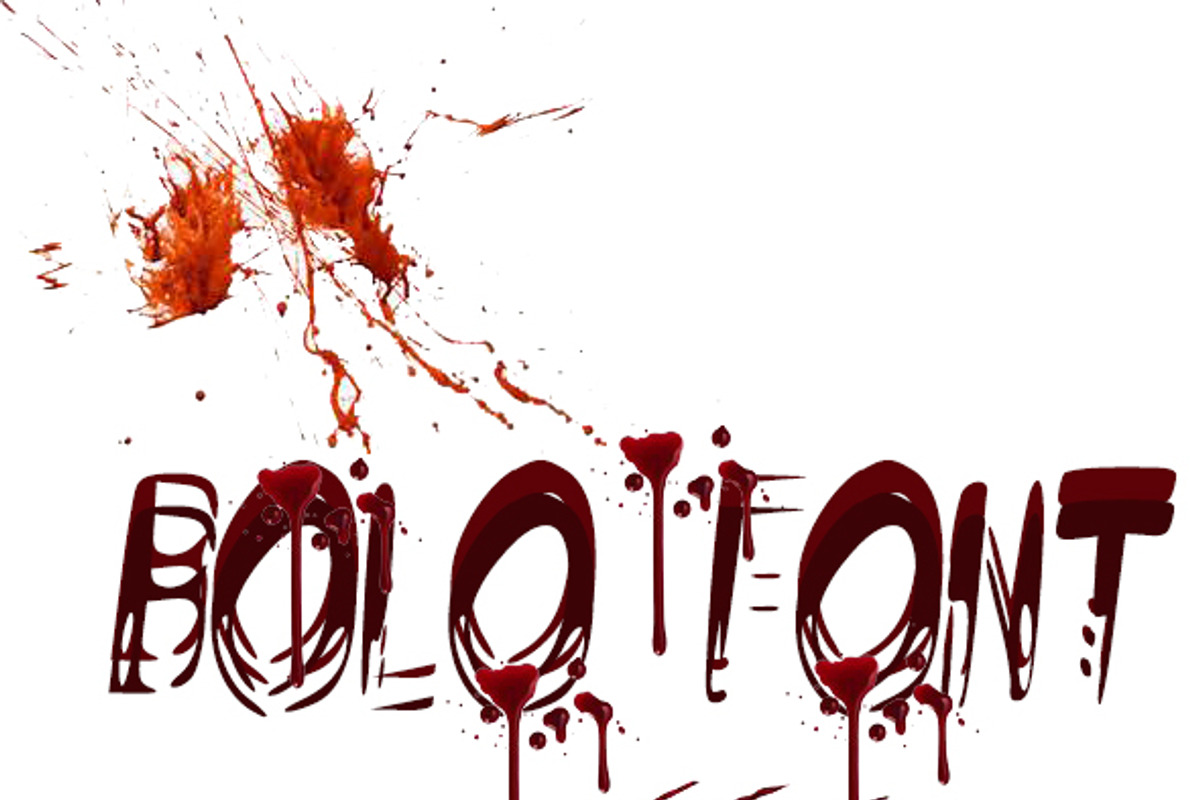
BLOOD FONT
BLOOD FONT by IM Studio is a font selected for branding, posters, packaging, typography.
Why BLOOD FONT is worth a look
BLOOD FONT by IM Studio fits naturally into Branding, posters, packaging, typography.